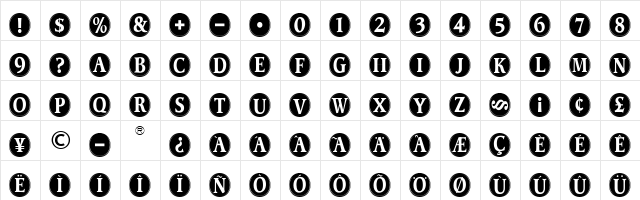
TF Habitat Bold
| Foundry | TFHabitat(CameoLarge is) - Treacyfaces,Inc |
| Year | 1986 |
TF Habitat takes a measured approach to typography — its balanced proportions and neutral character make it a reliable workhorse for both digital and print work. Its bold stroke weight gives it real presence on the page.